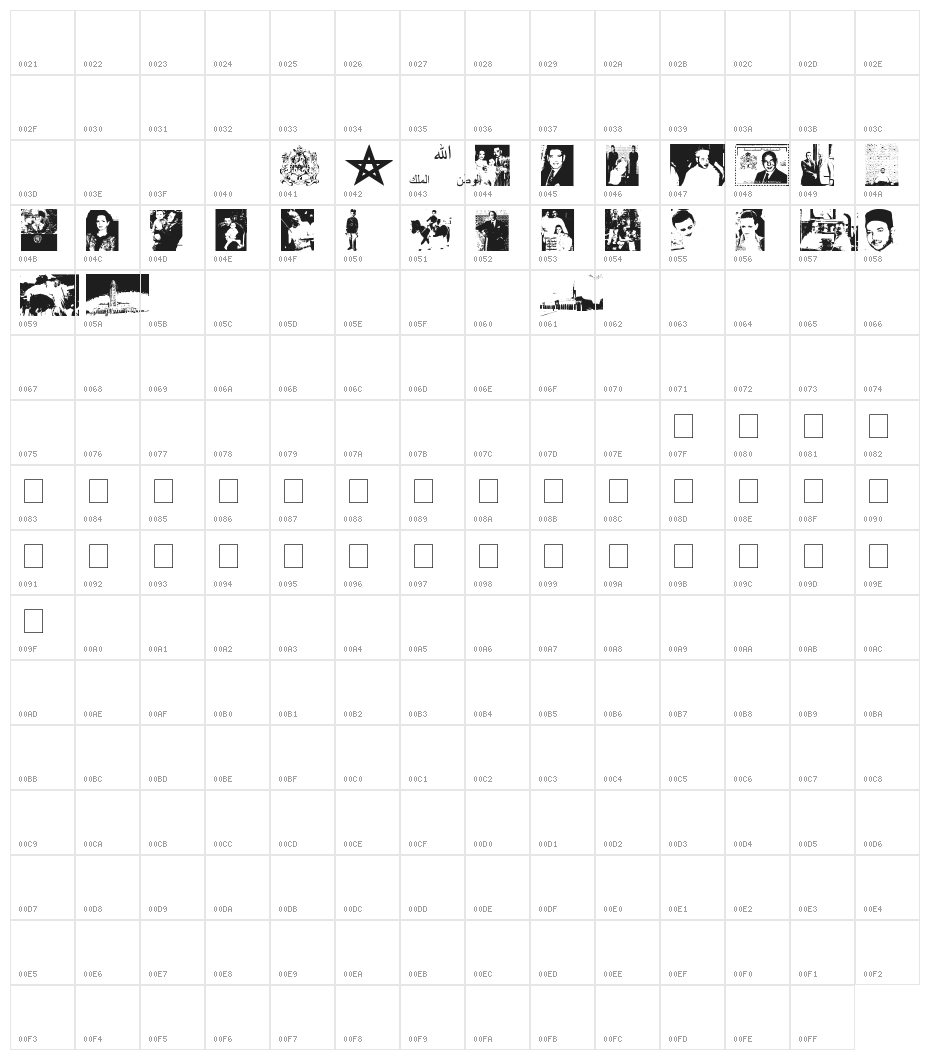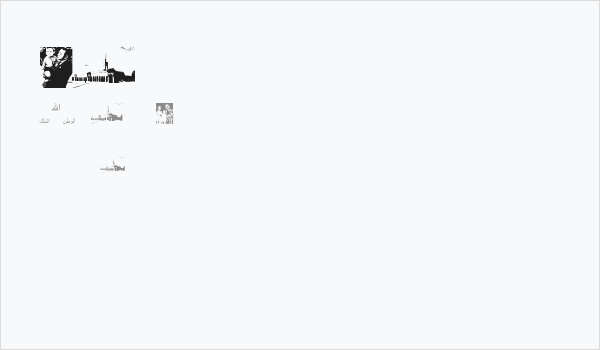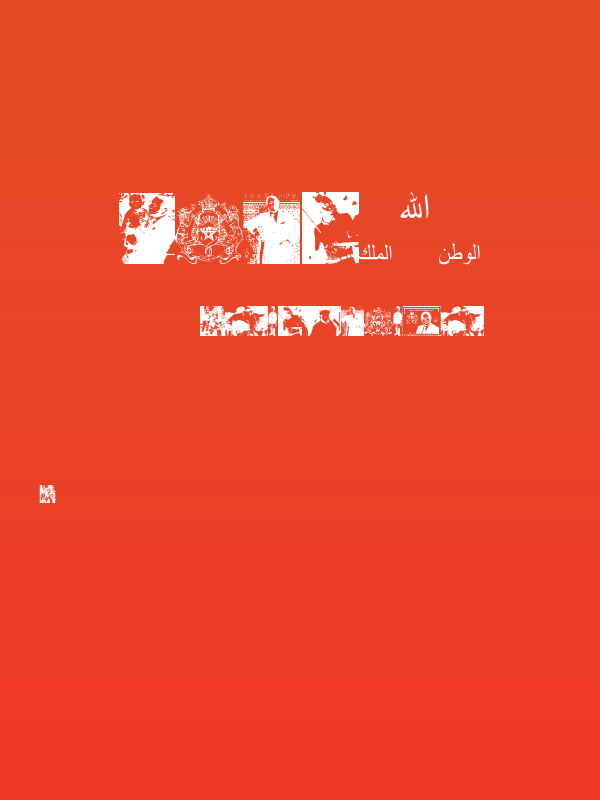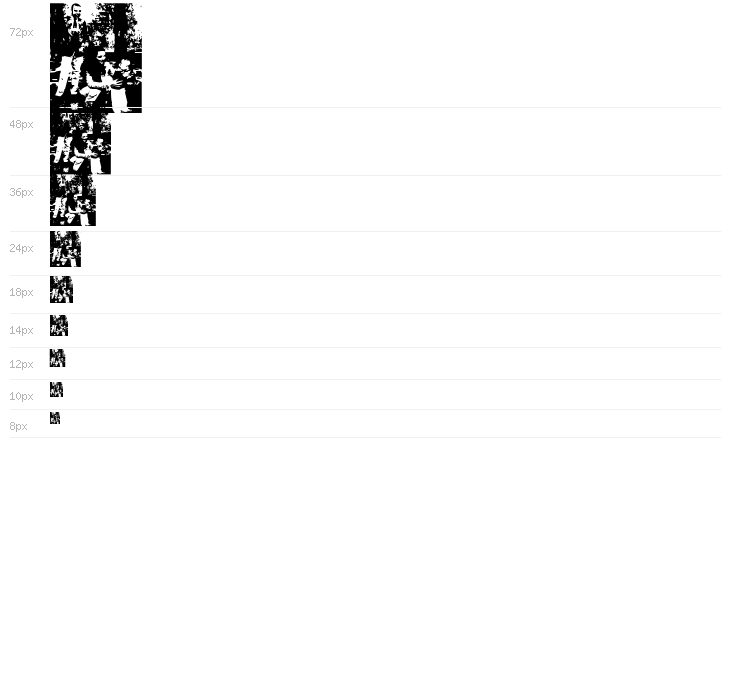
Maroc Font
Maroc Description
The image does not contain a valid font set but rather a collage of various images including portraits, symbols, and architectural elements.